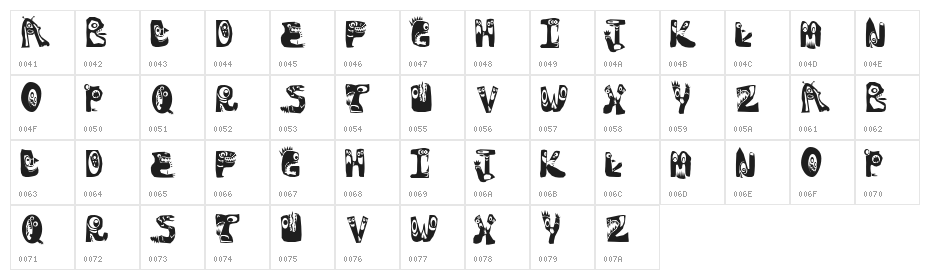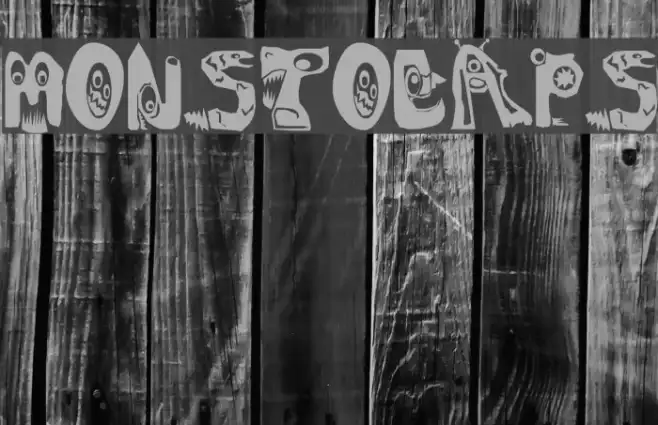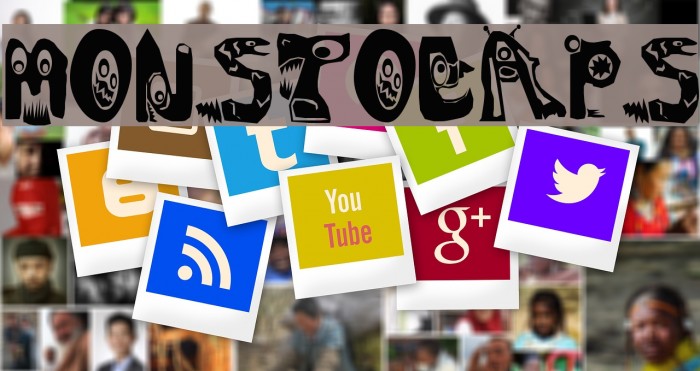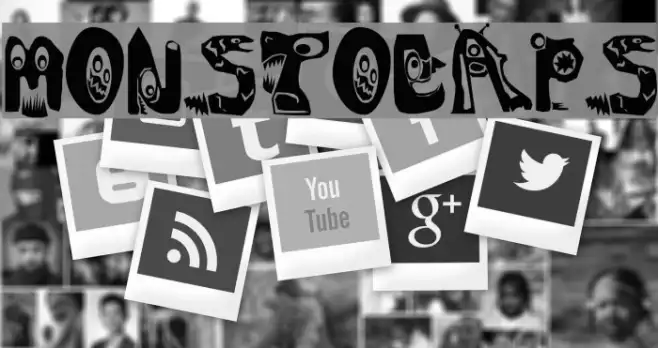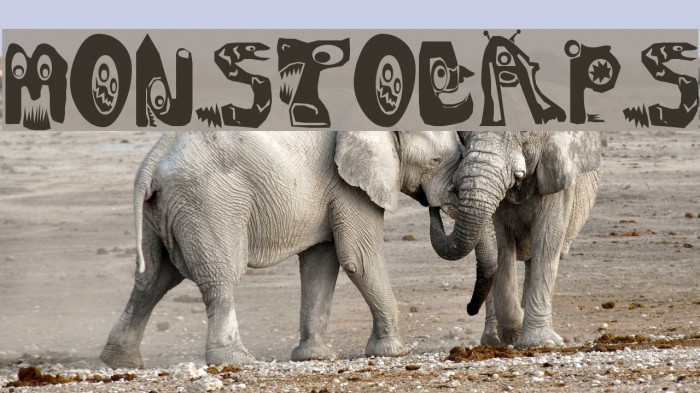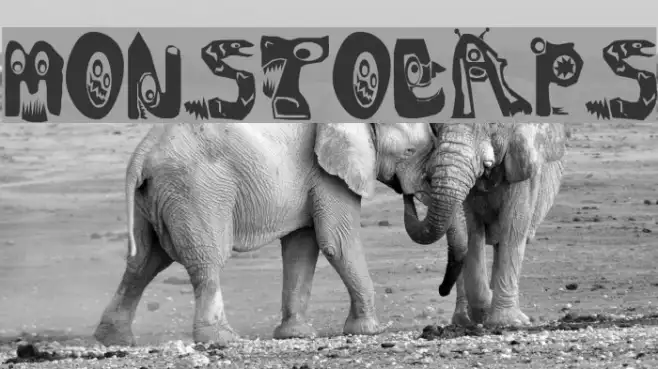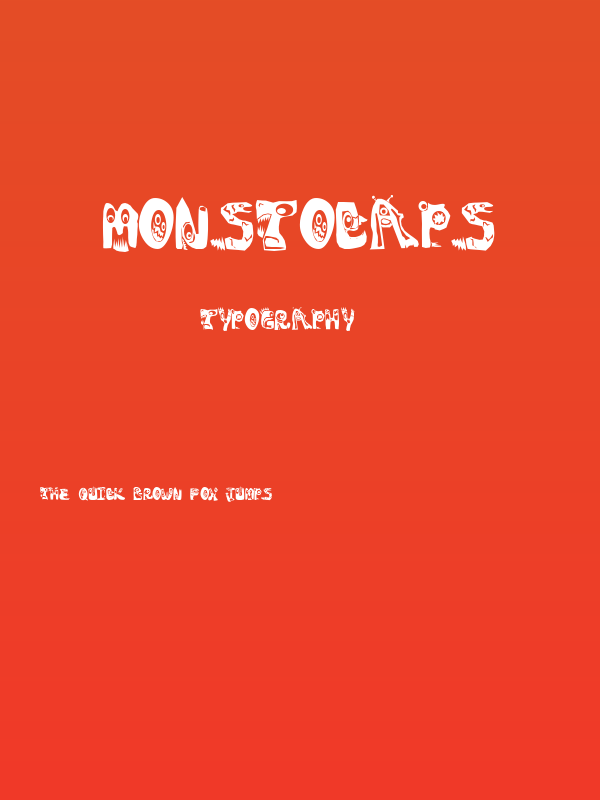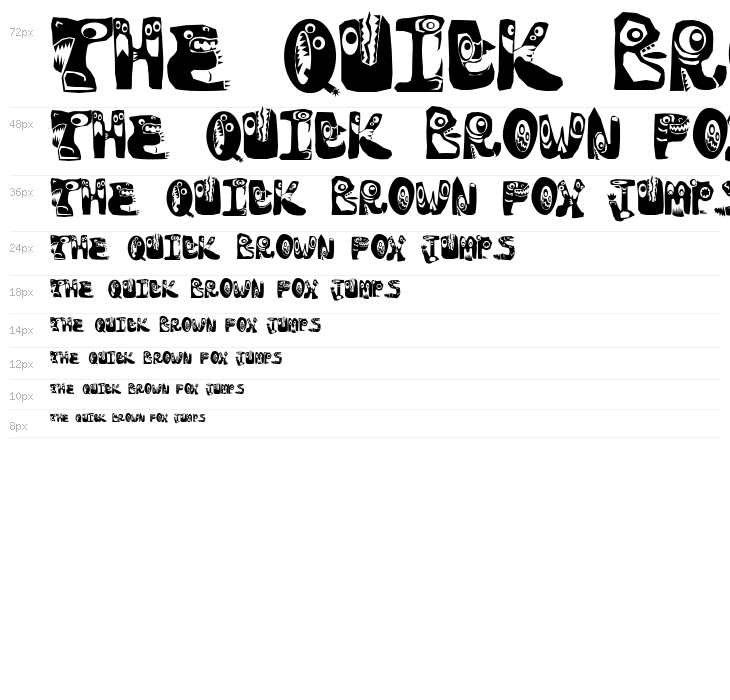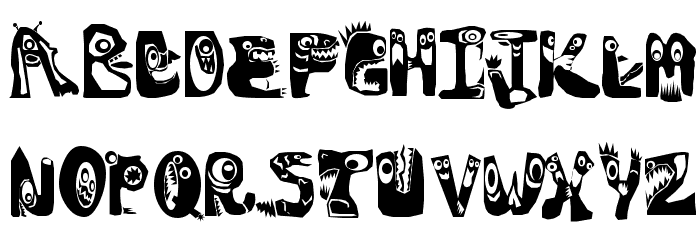
MonstoCaps Font
MonstoCaps Description
This playful and whimsical font features a series of uppercase letters designed with quirky monster-like elements. Each character is uniquely crafted with eyes, teeth, and other monster features, giving it a fun and imaginative appearance. The font is bold and decorative, making it ideal for creative projects that require a touch of humor and fantasy. The characters are tightly spaced, enhancing the compact and cohesive look of the font. Its high contrast in stroke thickness adds to the dynamic and lively feel, making it stand out in any design.
| Overall Style | Playful, Whimsical, Decorative |
| Proposed Projects | Ideal for children's book covers, Halloween-themed invitations, playful posters, and creative branding projects. |